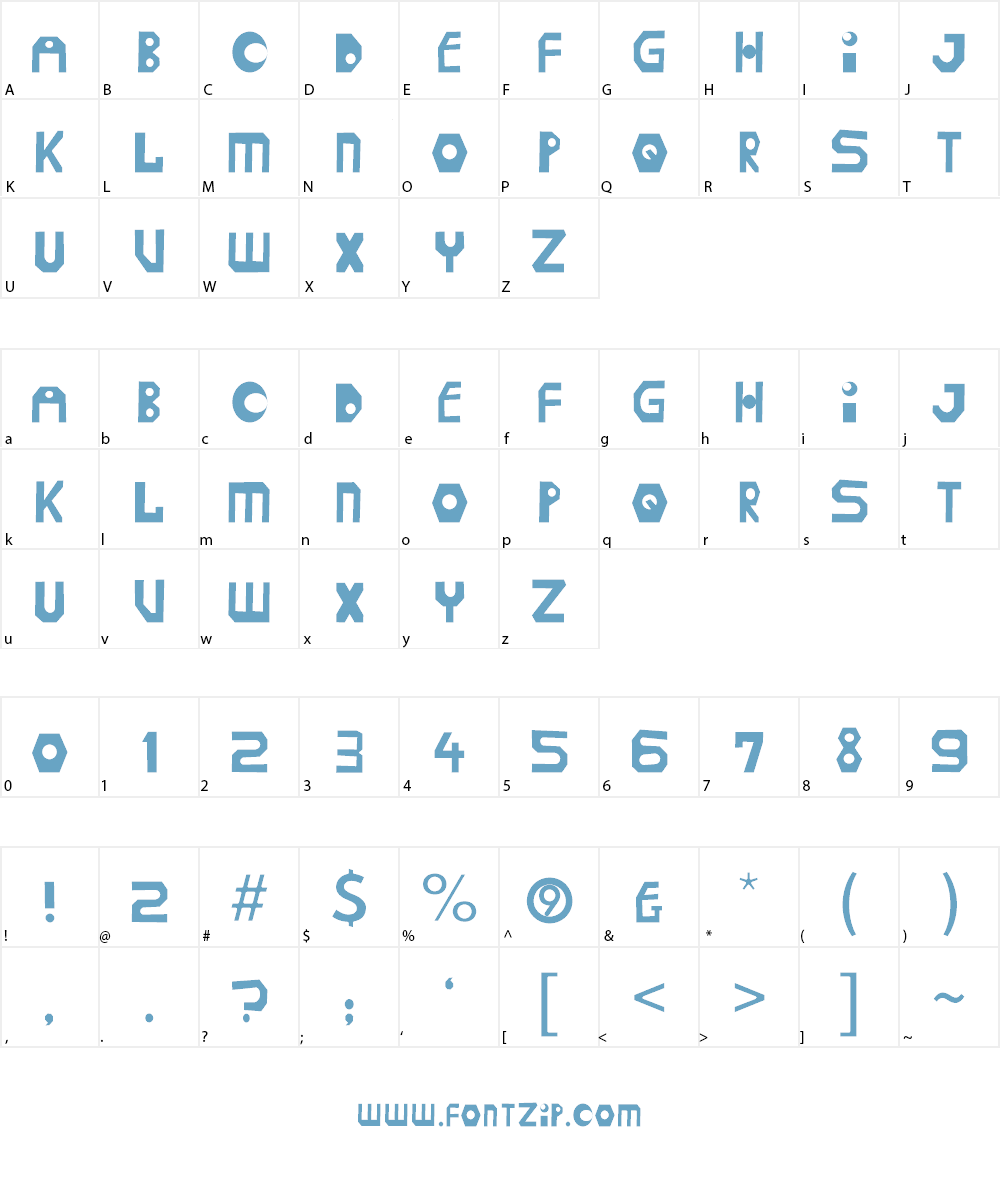
This font was named after Wriggle Nightbug, a firefly yōkai from the Touhou game Imperishable Night.
This font is a success with the previous font, Mystia.